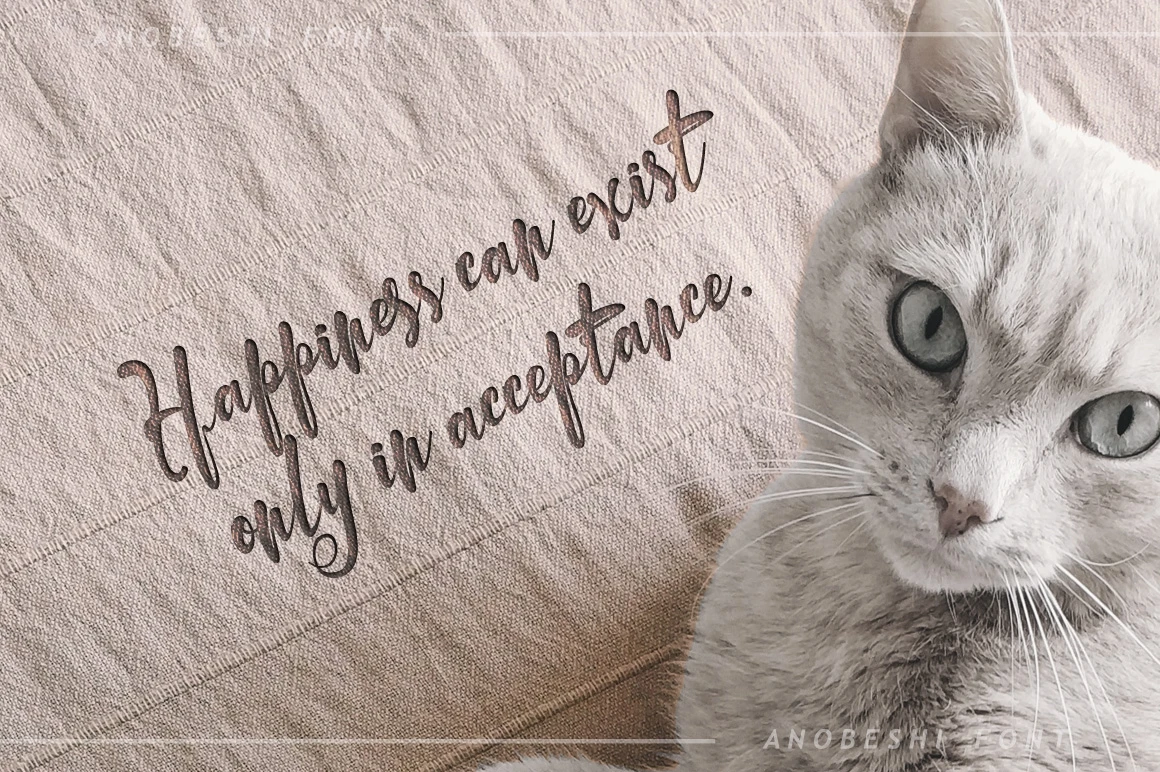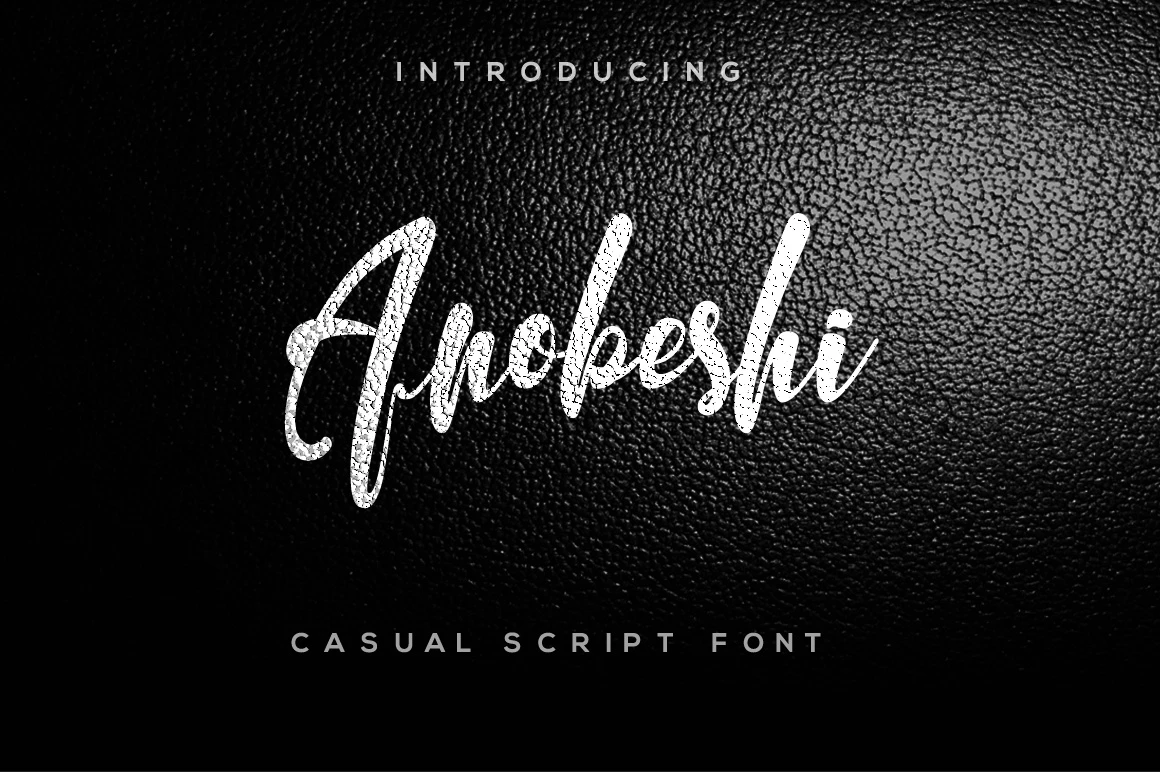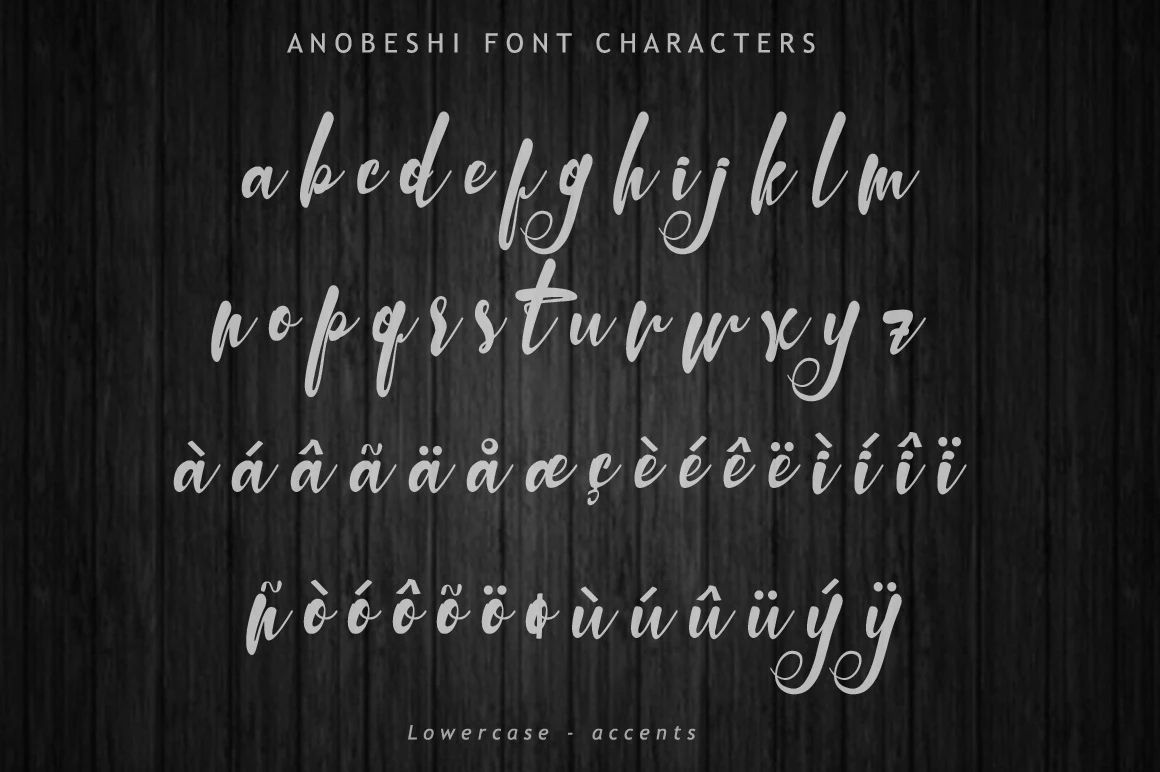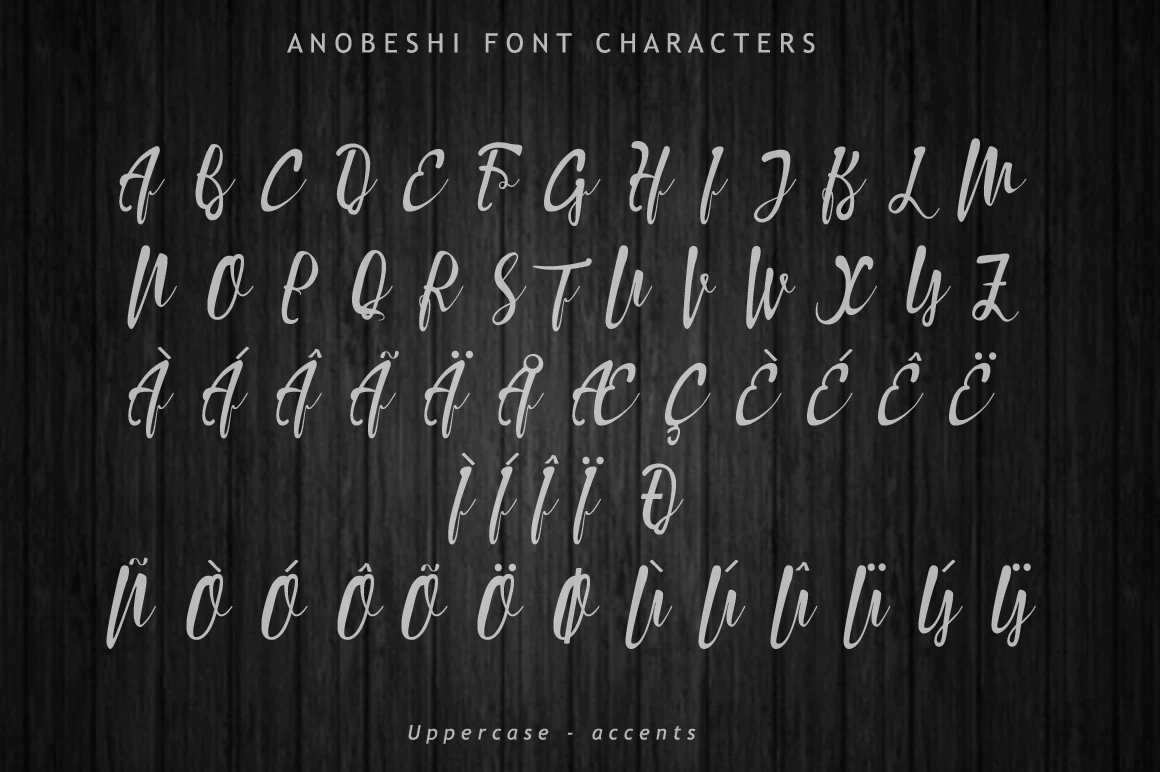
Anobeshi is a casual script font with artistic curves.
Anobeshi is an excellent choice for quotes, logotypes, branding, product packaging, wedding invites and many more.
Features :
- Uppercase A-Z
- Lowercase a-z
- Numbers 0-9
- Accents
- Punctuation
- Custom Ligatures
- Multilingual support